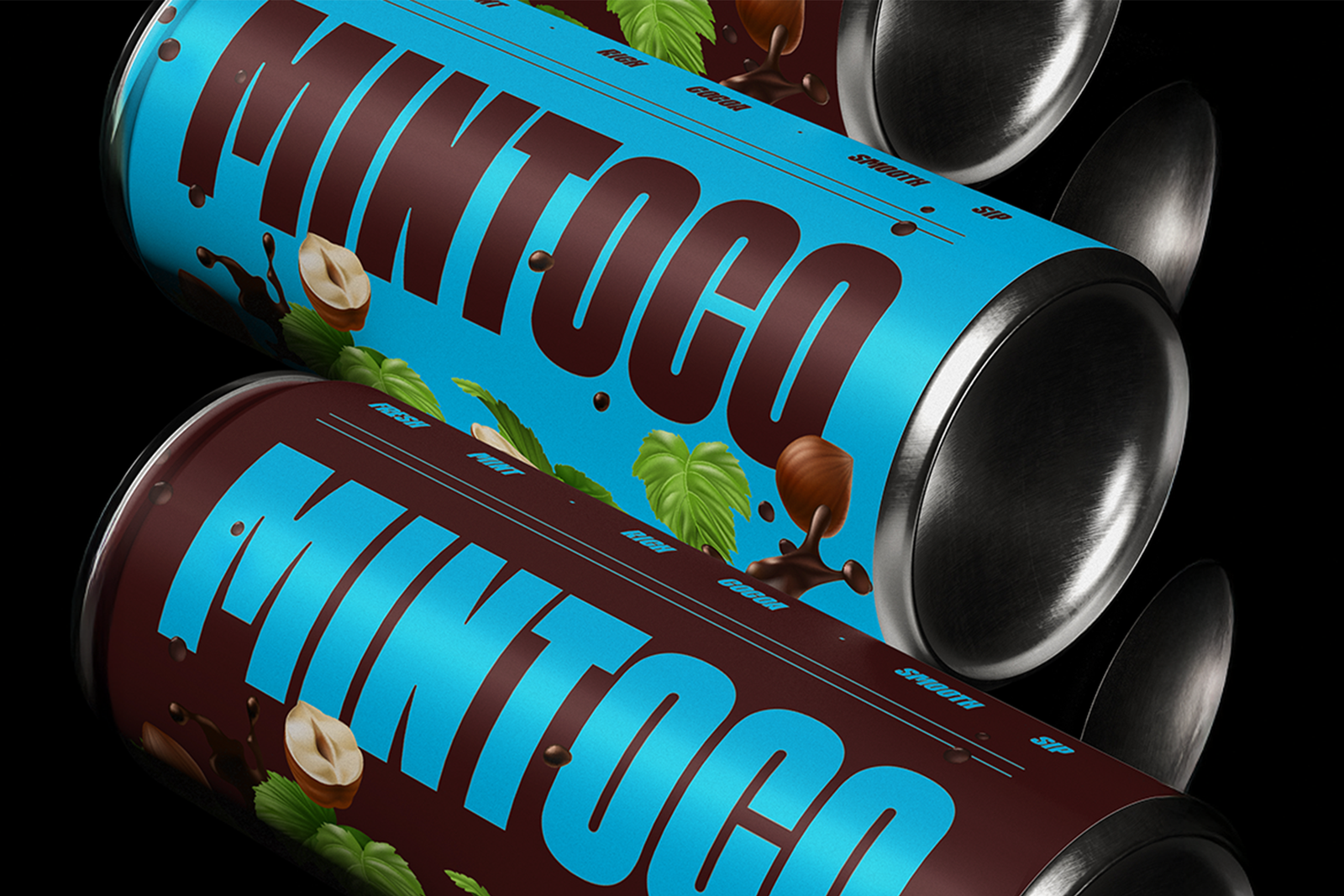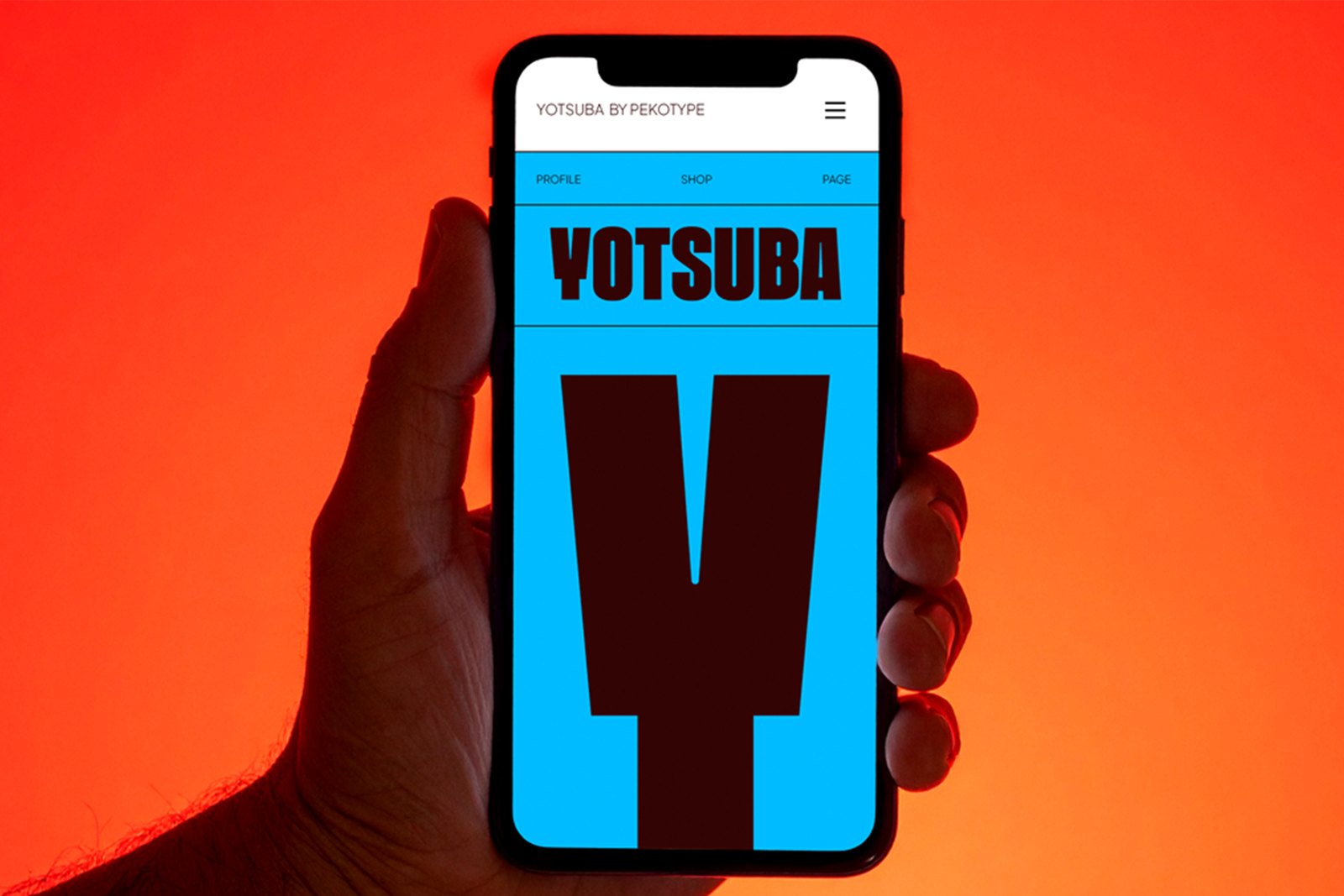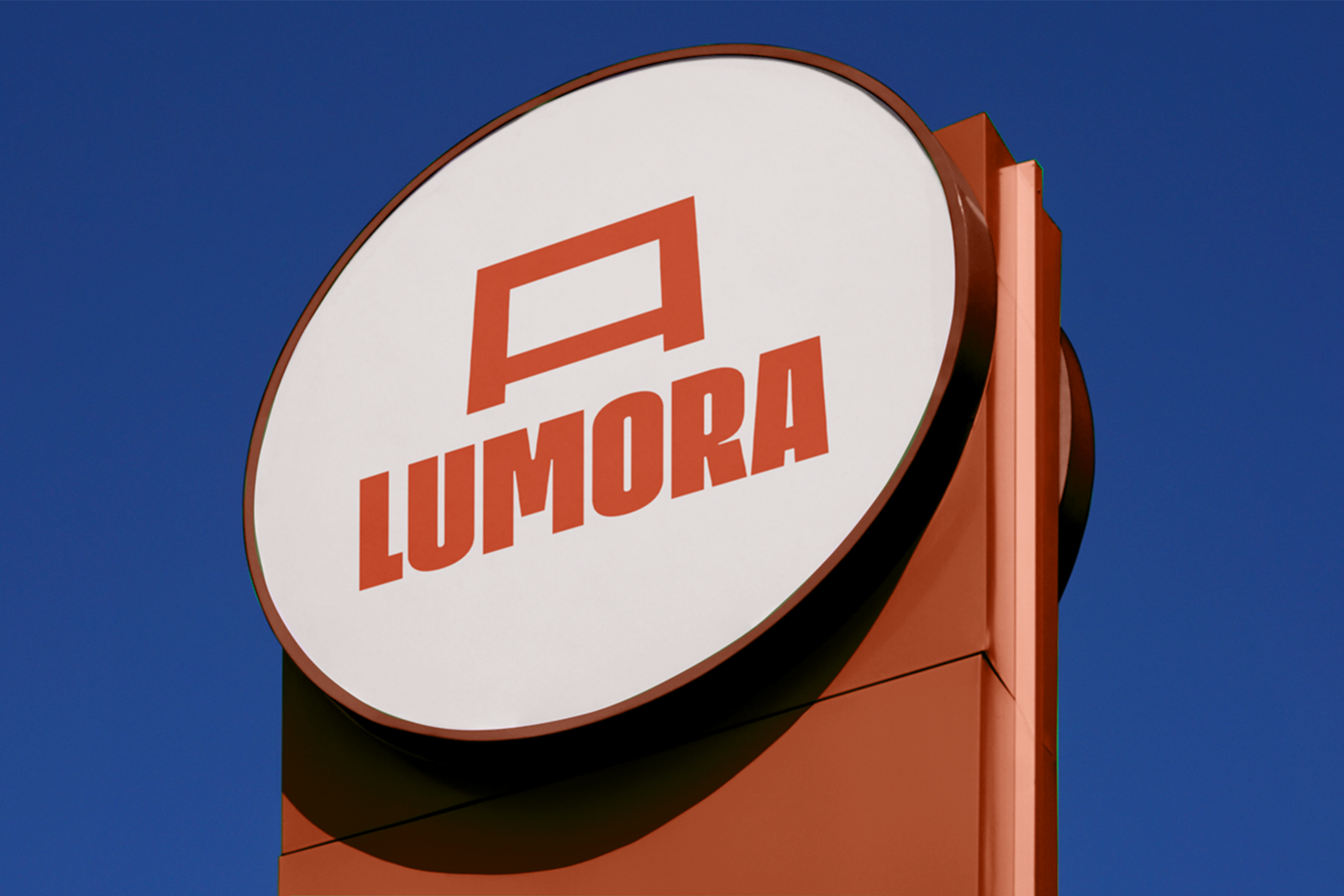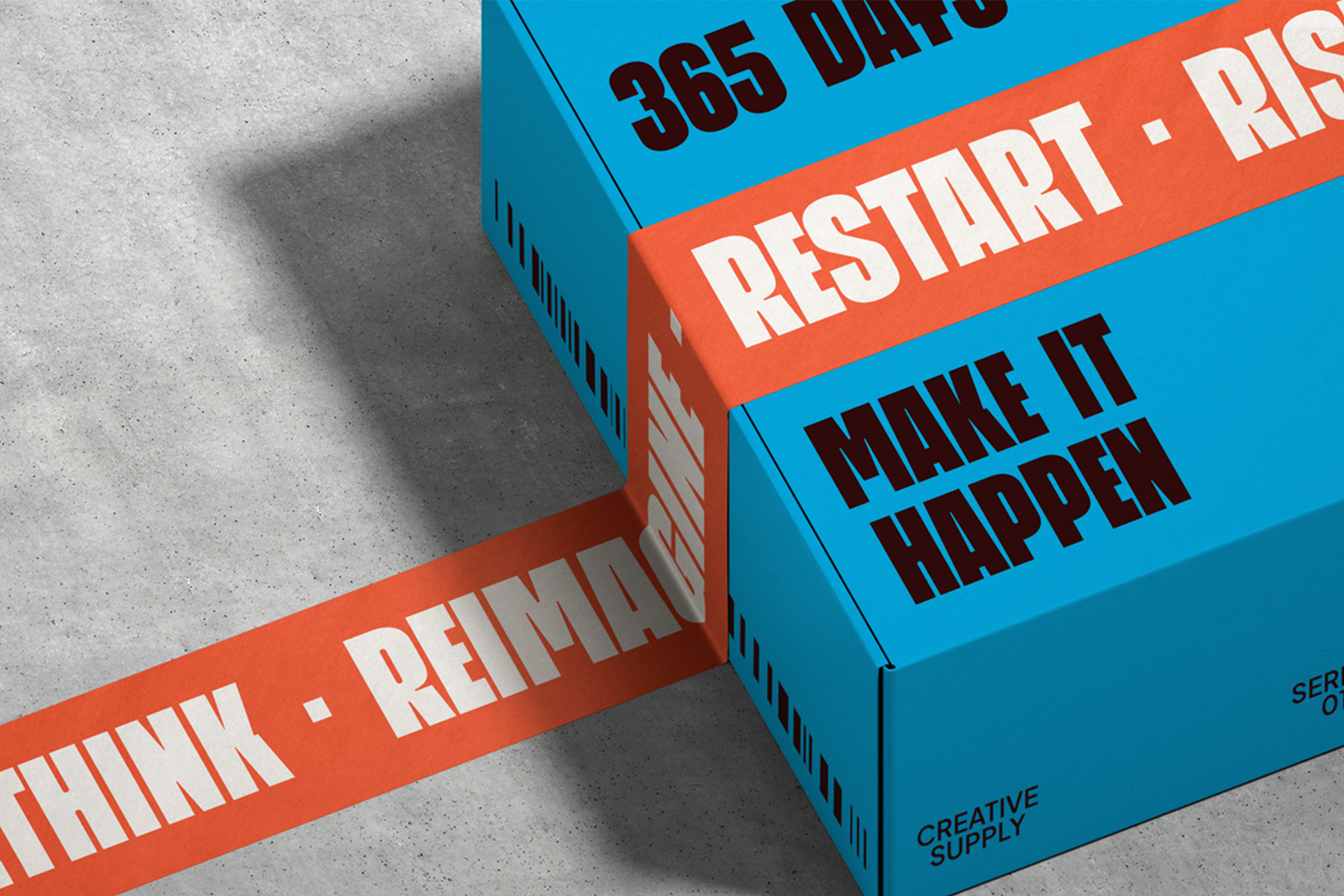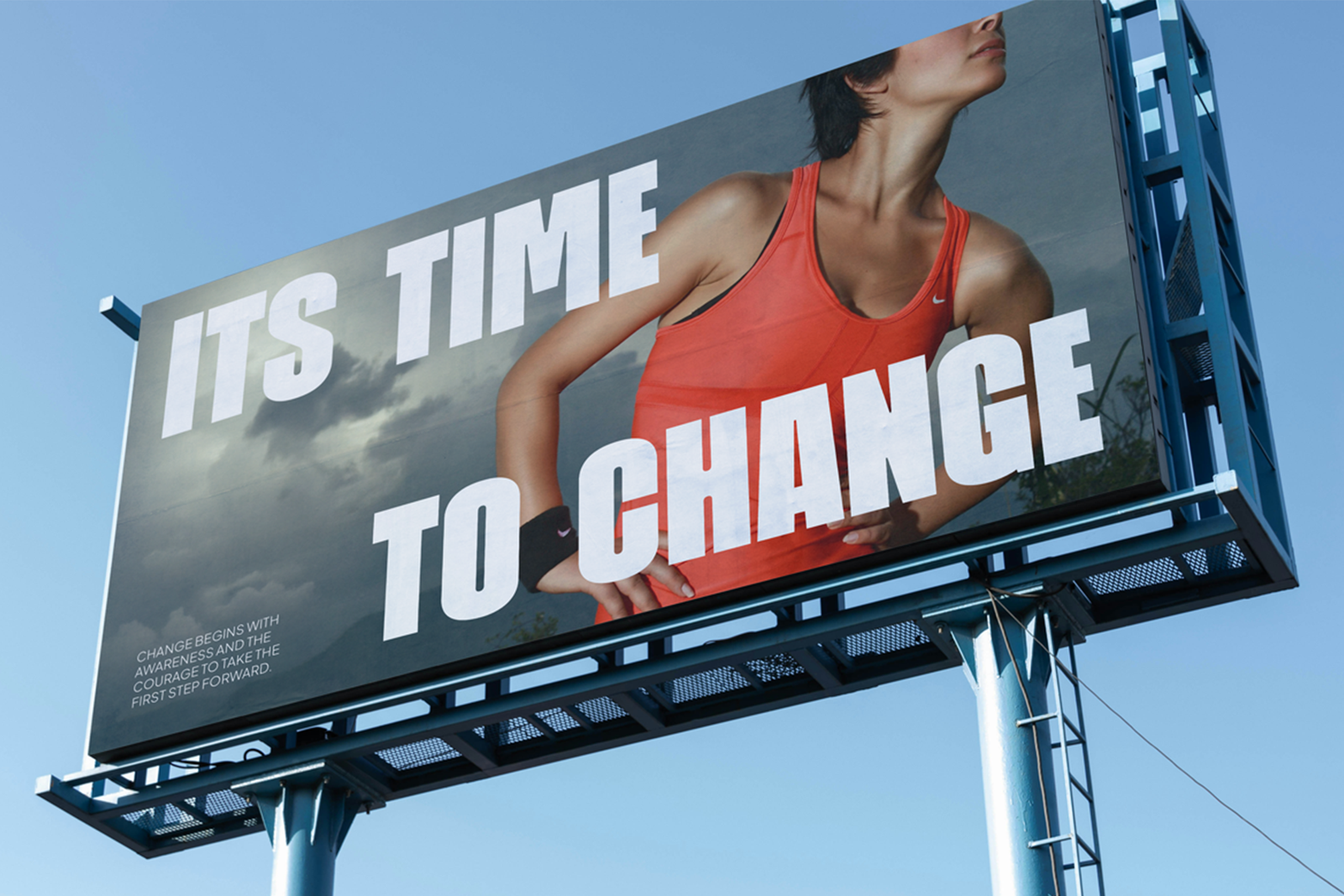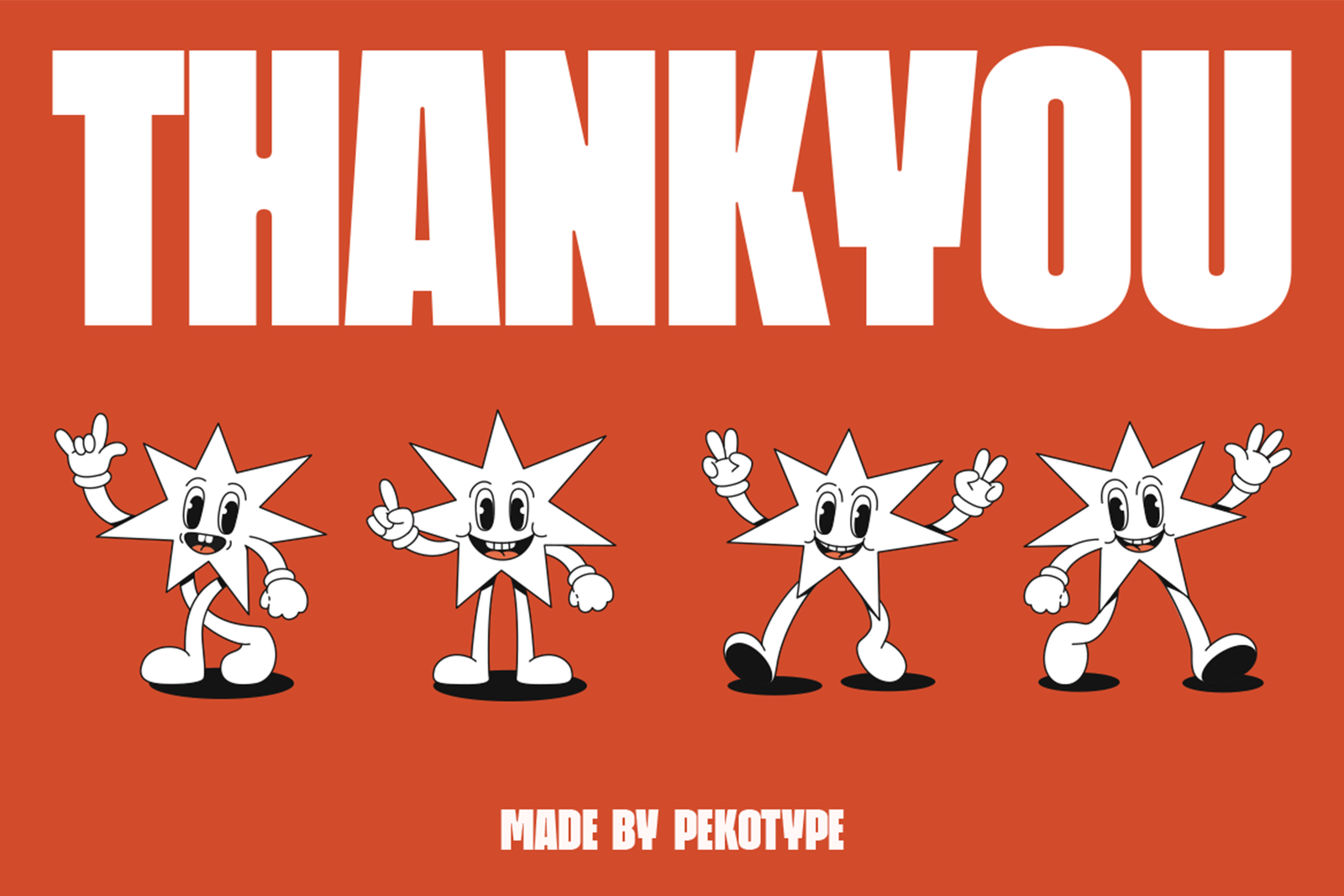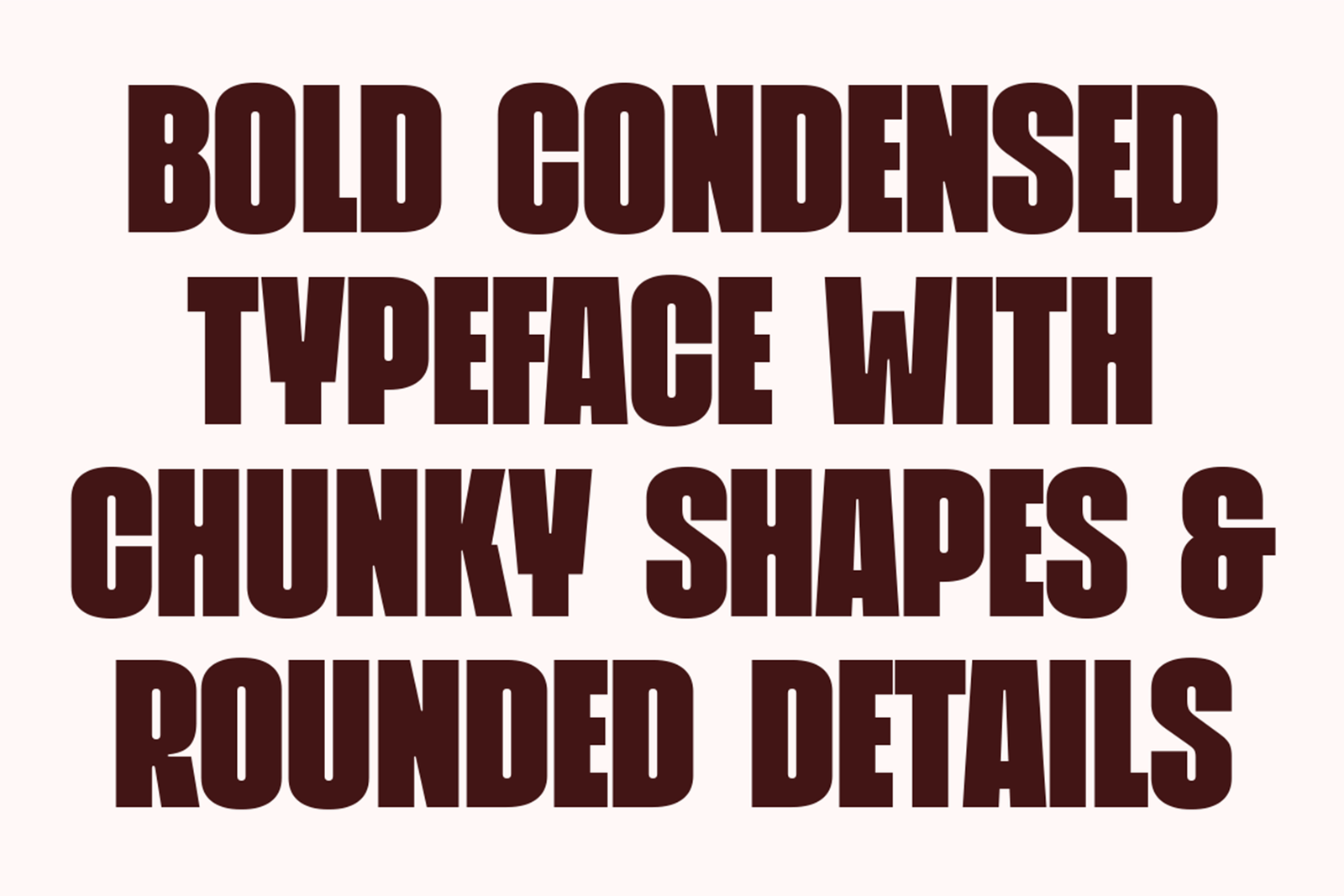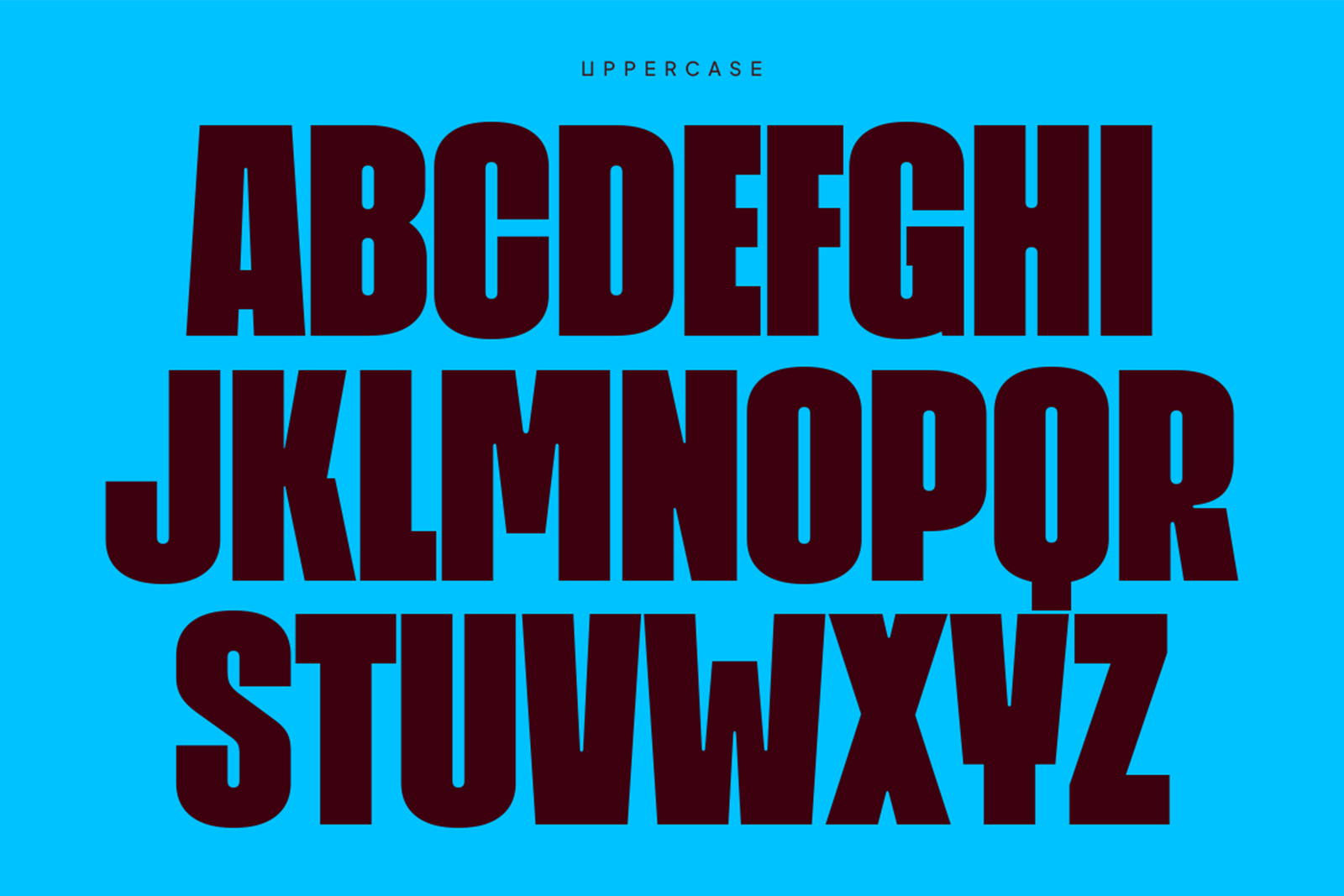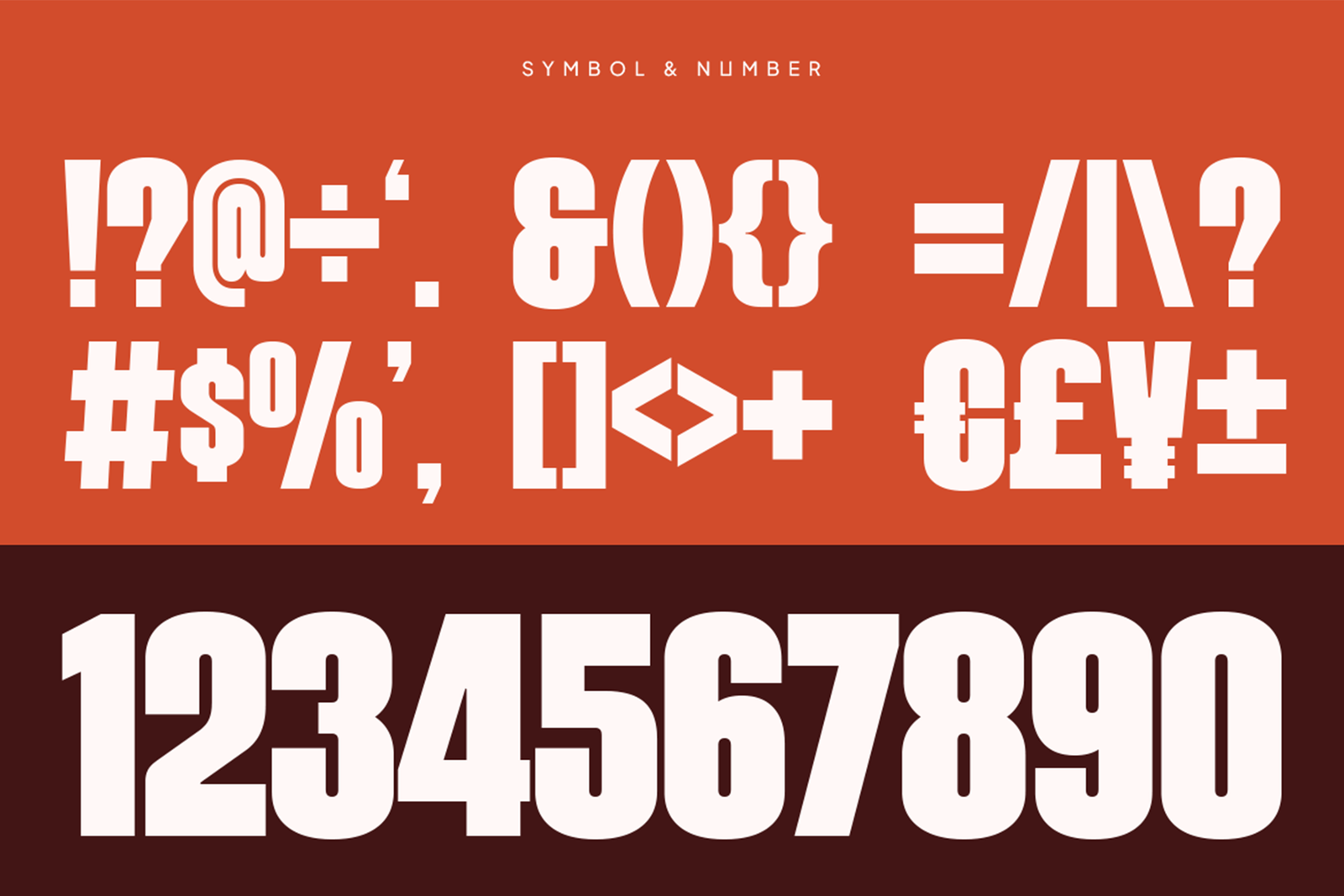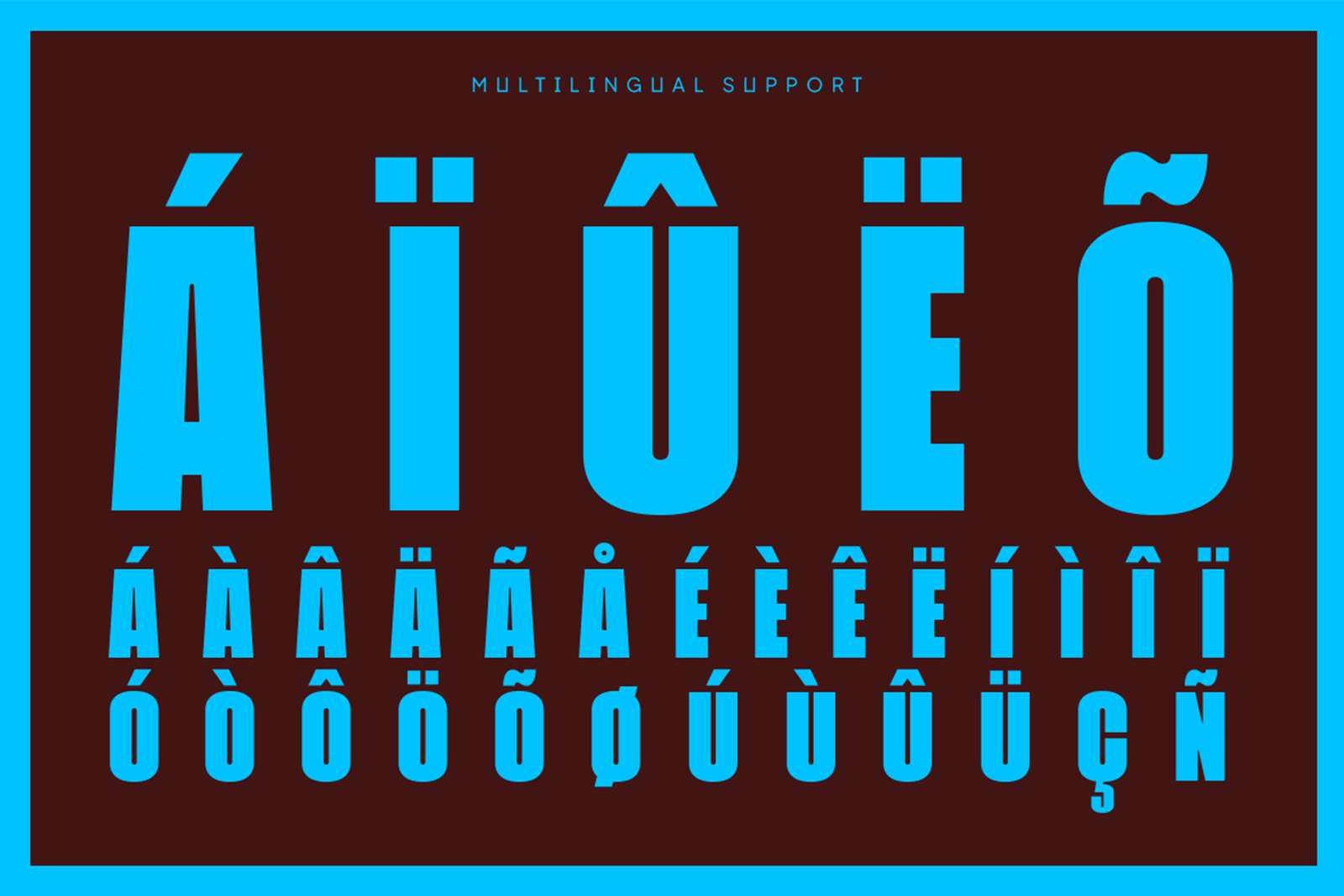
YOTSUBA Font – Bold Condensed Display Typeface
YOTSUBA Font is a bold condensed display typeface designed with chunky shapes, smooth rounded details, and a strong modern personality. Its thick letterforms create a powerful visual impact while keeping the overall style friendly, clean, and easy to read. The compact structure makes it especially useful for large headlines and layouts where space matters. YOTSUBA brings confidence and energy to every word without making the design feel too heavy.This font works beautifully for posters, product packaging, branding, logos, social media graphics, advertisements, beverage labels, street-style designs, billboards, apps, and promotional visuals. It is also a great choice for modern campaigns, event graphics, retail signage, and product launches. Whether you are creating a bold brand identity, a promotional headline, or eye-catching packaging, YOTSUBA Font helps your design stand out with a strong and memorable character.The typeface includes all caps characters, numbers, symbols, punctuation, and multilingual support for flexible creative use. It is suitable for digital and print projects, from large headlines to compact labels. YOTSUBA Font is a versatile choice for designers who want bold typography with a modern, playful, and impactful look that stays readable across different layouts, screens, posters, and marketing materials and bold promotional campaign concepts.
Features:- All Caps
- Number, Symbol, & Punctuation
- Multilingual